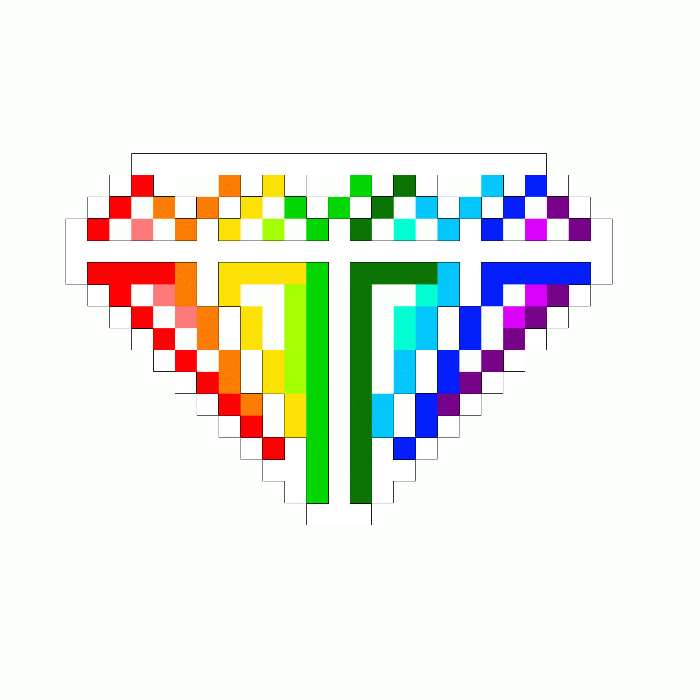
Make the letters any width desired.
Type the uppercase letter for the left half of the letter, type an extender (or not), then type the same lowercase letter for the right half of the letter. The more extenders are inserted between the left and the right halves, the wider the letter becomes.
I and T are the exceptions where the extenders are typed before and after the left and right halves and not inbetween.
The other exceptions are M and W which have been split into 3 and extenders are added between the left, middle and right thirds.
? is split between ? and /
Extenders are located at @ # $ % ^ & * ( ) and _
How to extend:
A@@a, B##b, C$$c, D$$d, E##e, F%%f, G$$g, H^^h, &&Ii&&, J**j or J**$$j, K^^k, L**l, M(({((m, N((n, O$$o, P@@p, Q$$q, R%%r, S##s, (((Tt))), U**u, V**v, W**}**w, X^^x, Y^^y, Z__z, ?@@/
A design that puzzles -- we either experiment or read the description to get clear legible text. This novel design and idea gives one or more real DIY fonts ;)
Do you think you can split the left half of the M in half, leaving the left left half on the M and moving the right left half to another? It'd allow us to put extenders on the left side of the M...
(And the same with the right side of the W)
You've just revealed to me that the connection of letters using the 'sandwich' method that I used in my Countertop font can be used for letters, not just dingbats. Consider myself schooled.
GenIus. Variable fonts FontStruct style.
G can also be extended like so: G$$__g
(and G__g)
I was trying some similar in this old font called zage. But my connectors was "floating", changing the font style from sans serif to serif or script... At the end, your idea is very best than mine. Congrats again.
Nice sample with the extending X...
I second that ! Love it, makes me wanna make a variable font too..
With G__g i did this:
All letters are not capitallized.
Looks OK, but I need to tell you this. The Y looks wrong when extended. Can you make Y have the same rules as M and W?
I'm woring on something similar: Exdended
Suggestion to make the Y extendable with only two (handdrawn) sections (put this in alternates)...
G$gRrE* F@a((Tt)) C* O$oNYnC* E* P@p((Tt))!
I have one question. Why is the ? split between "?" and "/"?